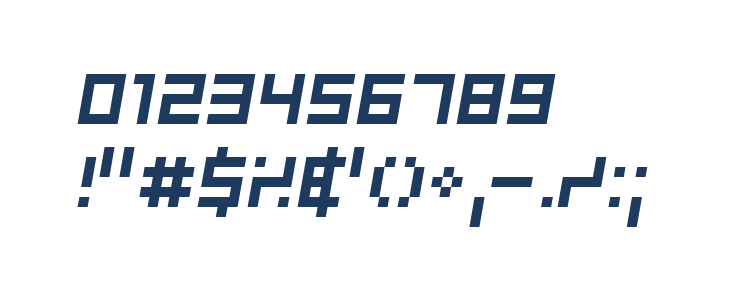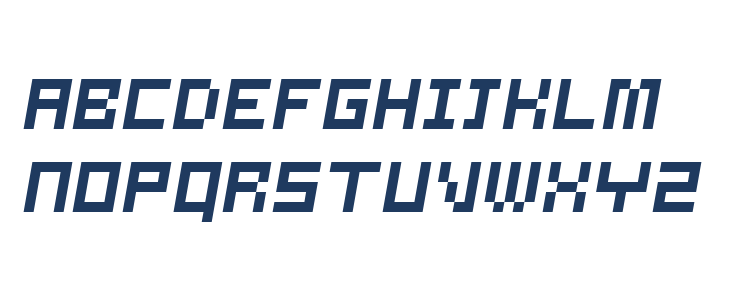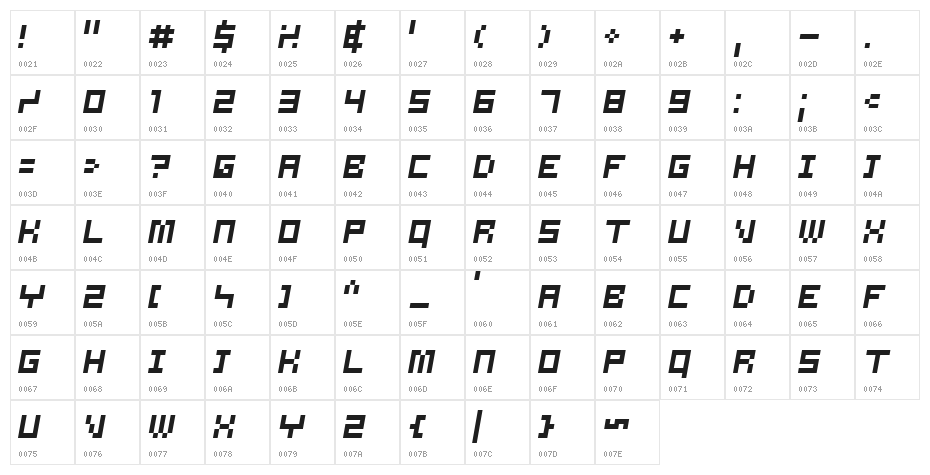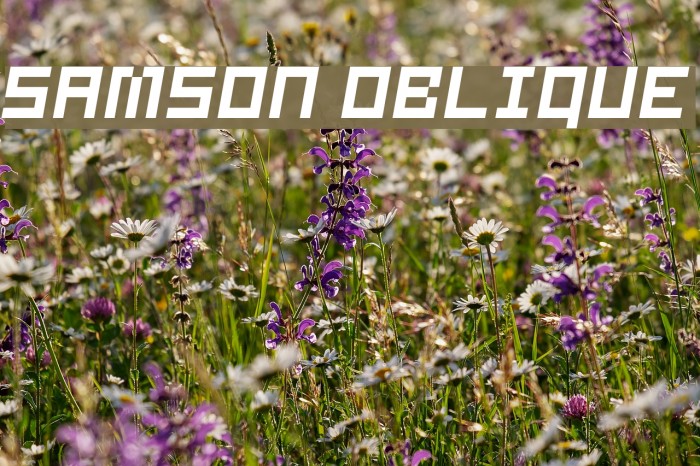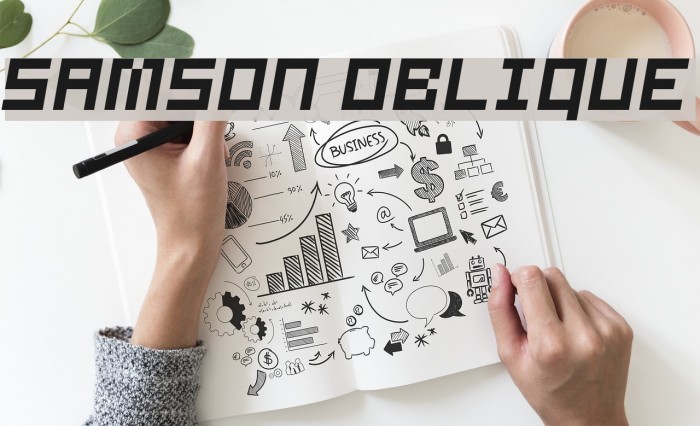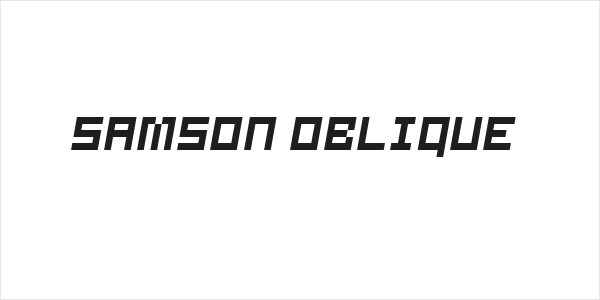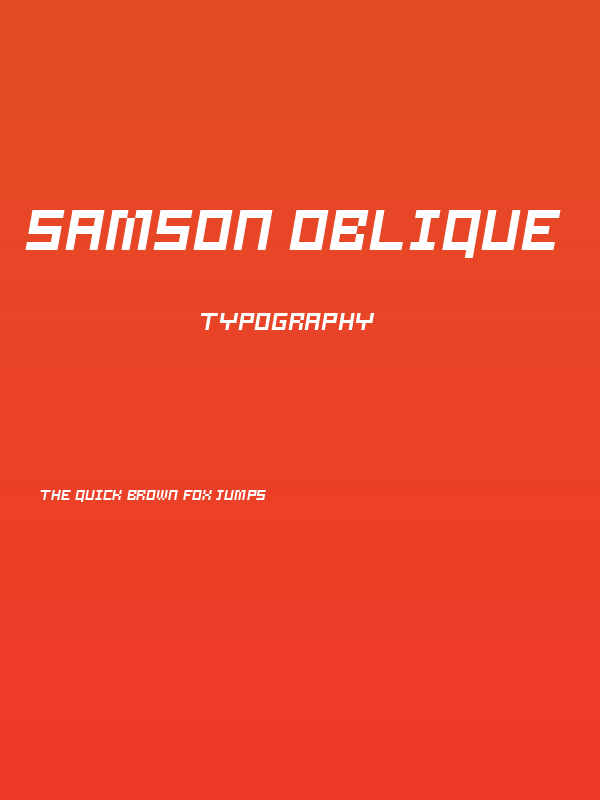
Samson Oblique Font
Samson Oblique Description
This font features a bold and angular design with a distinct oblique slant, giving it a dynamic and modern appearance. The characters are constructed with straight lines and sharp angles, creating a geometric and futuristic feel. The uppercase and lowercase letters maintain a consistent style, with the lowercase mirroring the uppercase in form. The numerals and special characters follow the same design principles, ensuring uniformity across all glyphs. The font's strong presence makes it suitable for impactful and attention-grabbing designs.
| Proposed Projects | Ideal for technology branding, sports team logos, video game titles, and futuristic posters. |